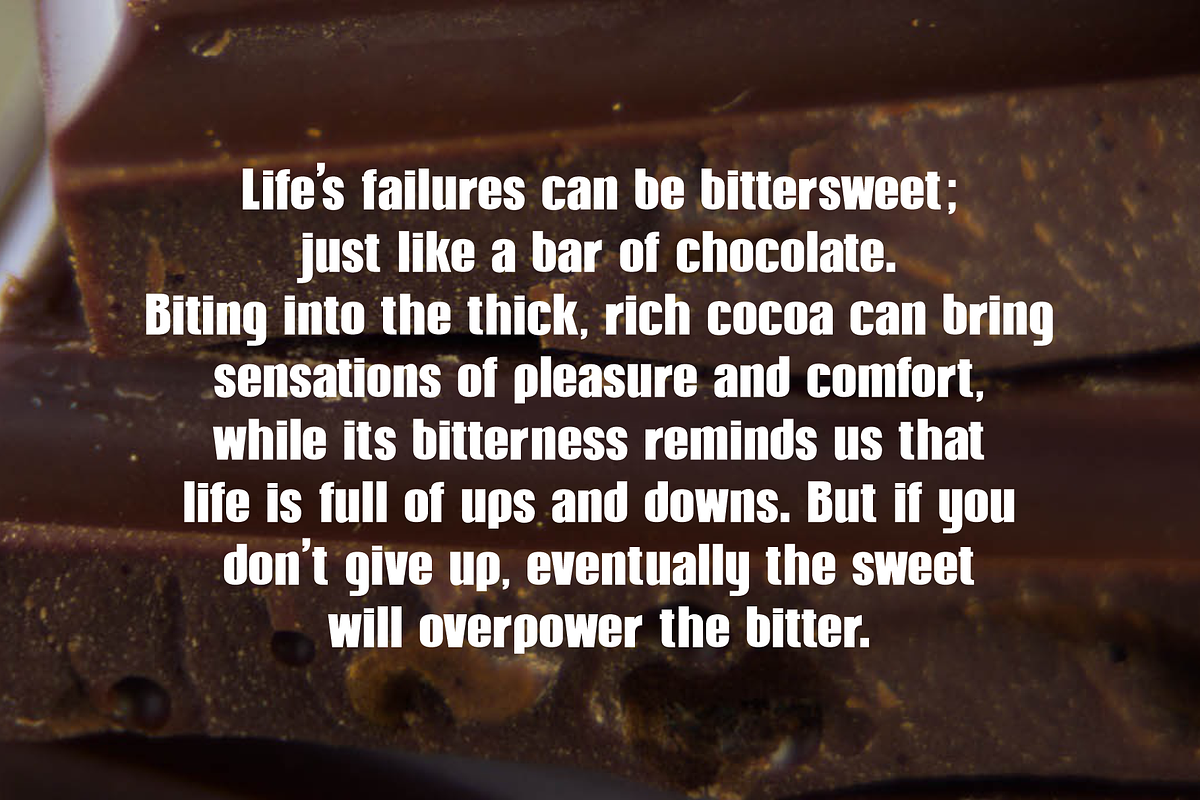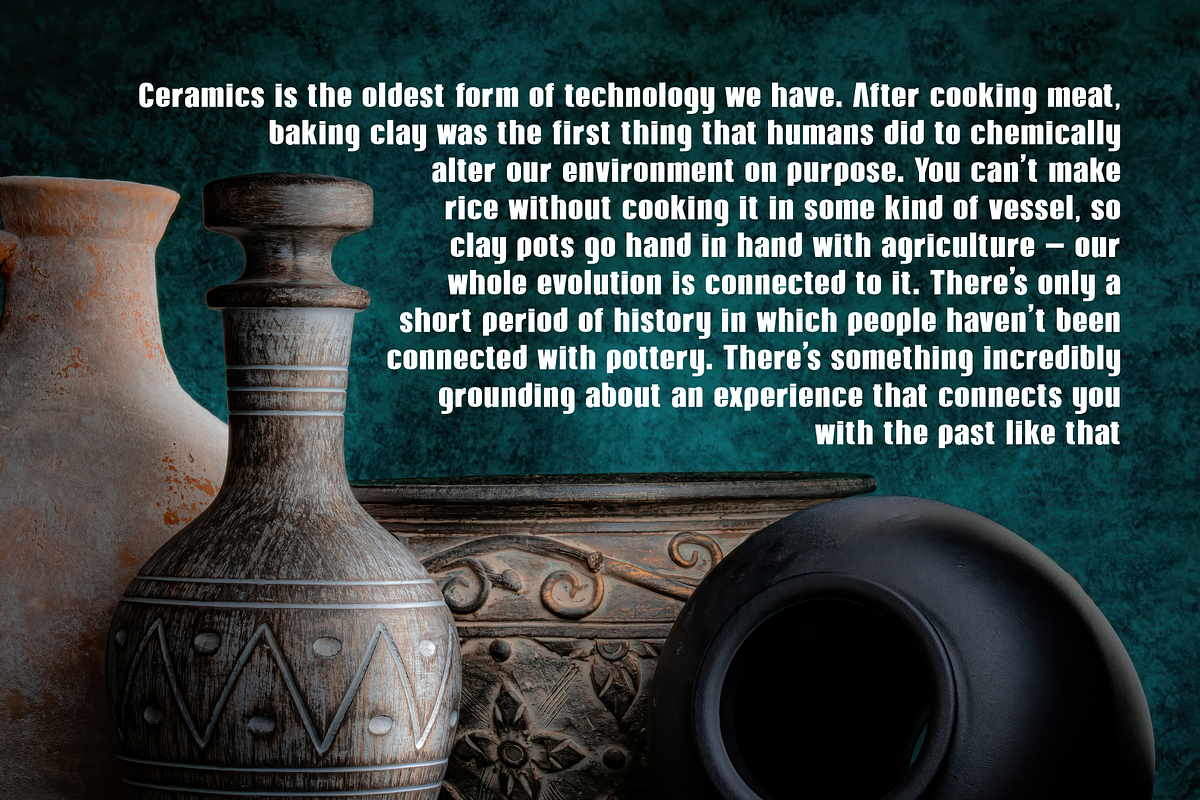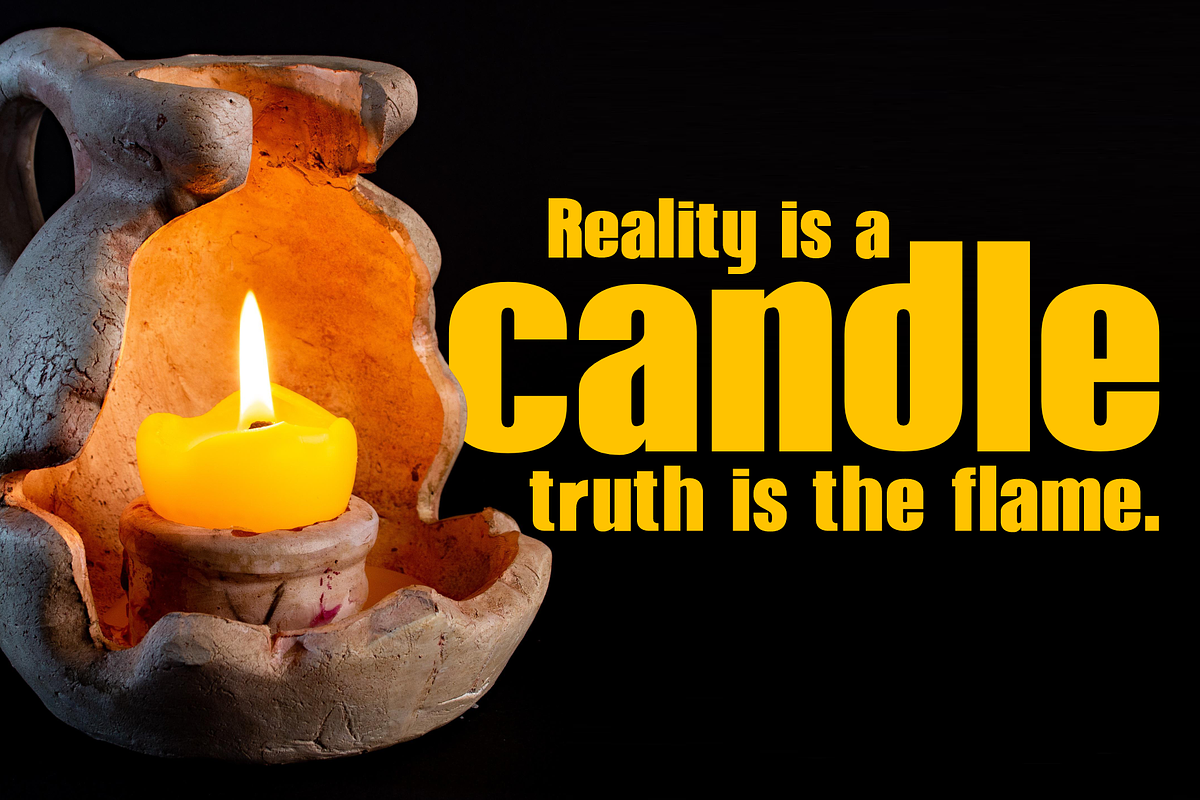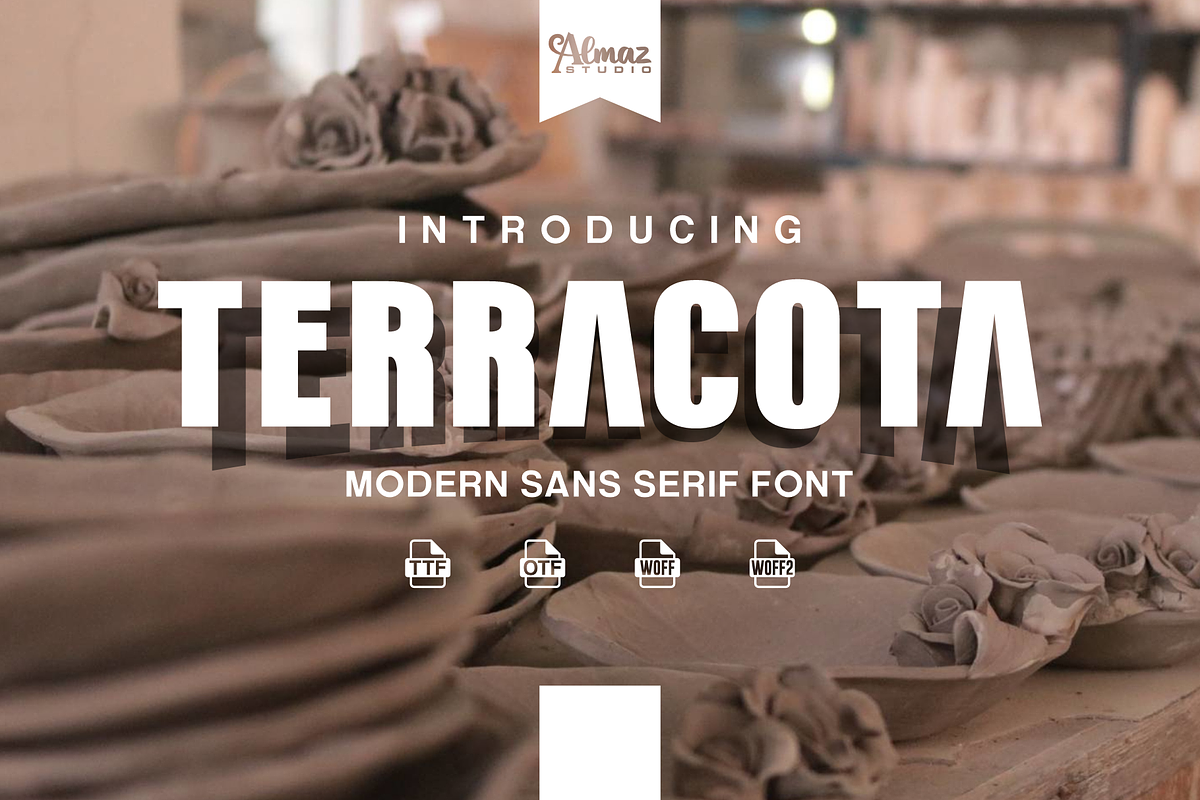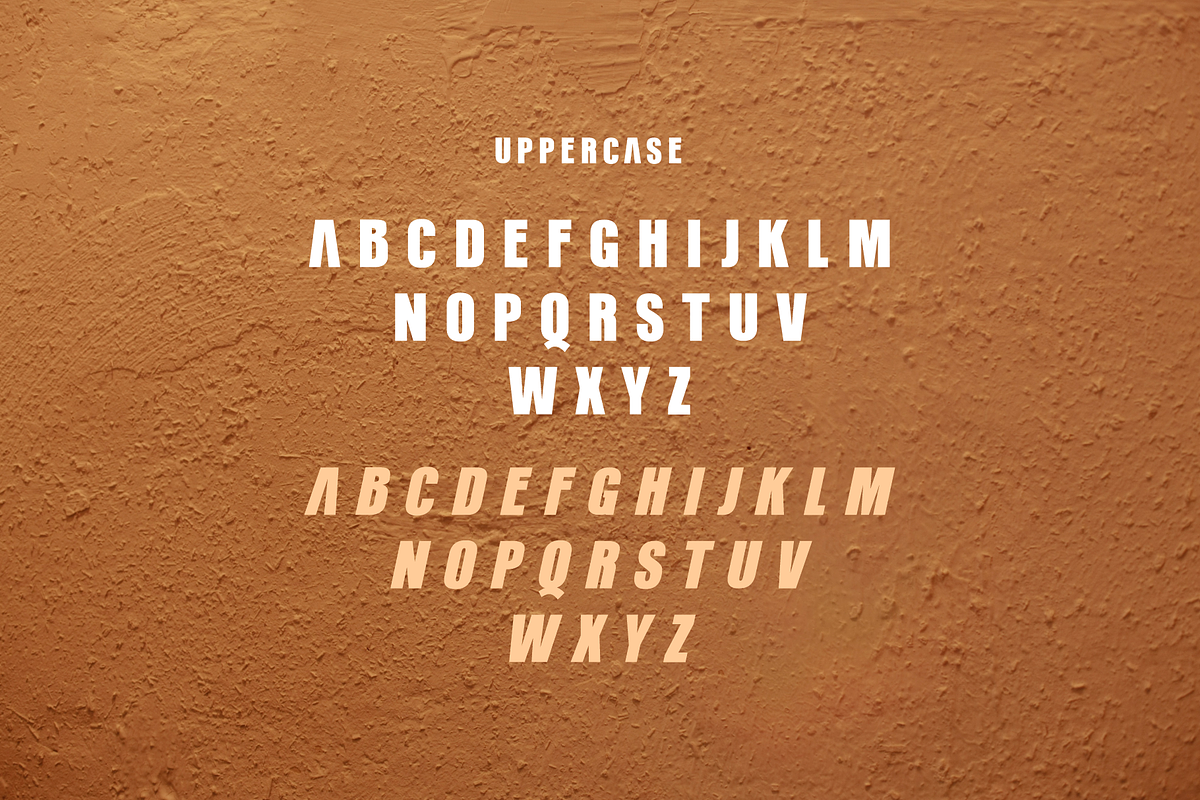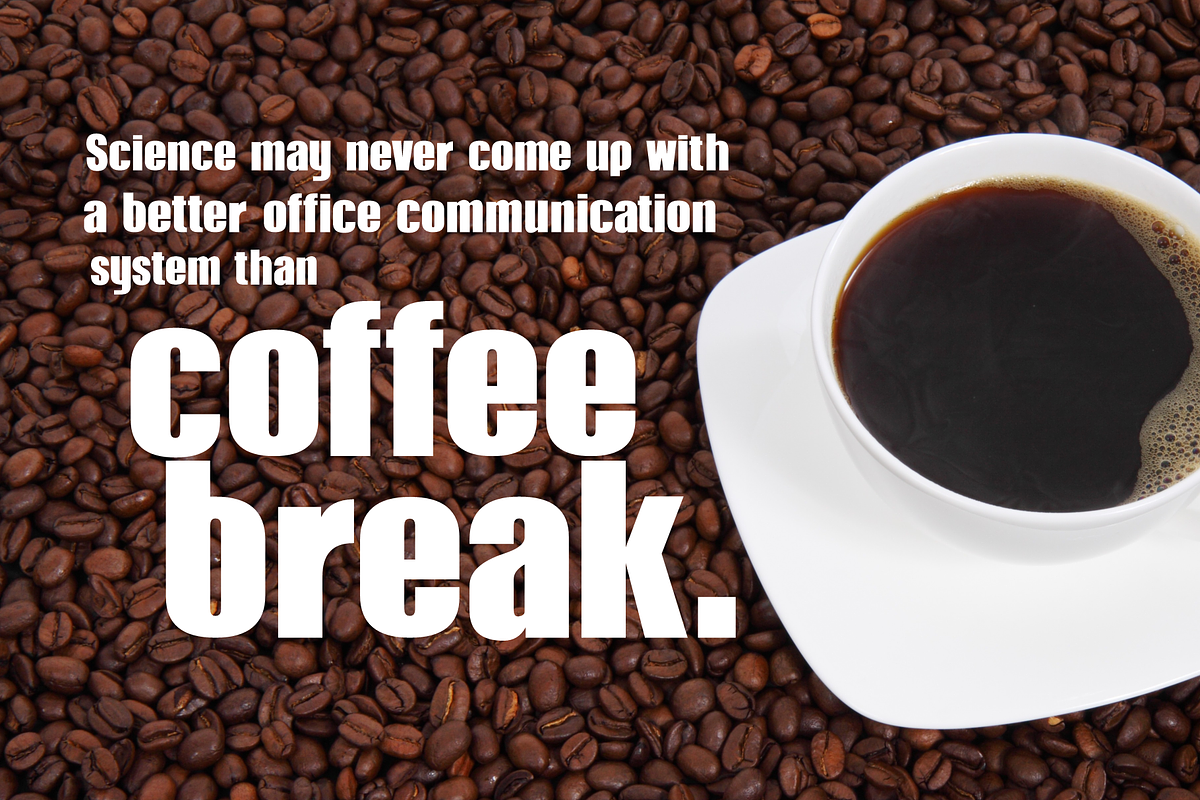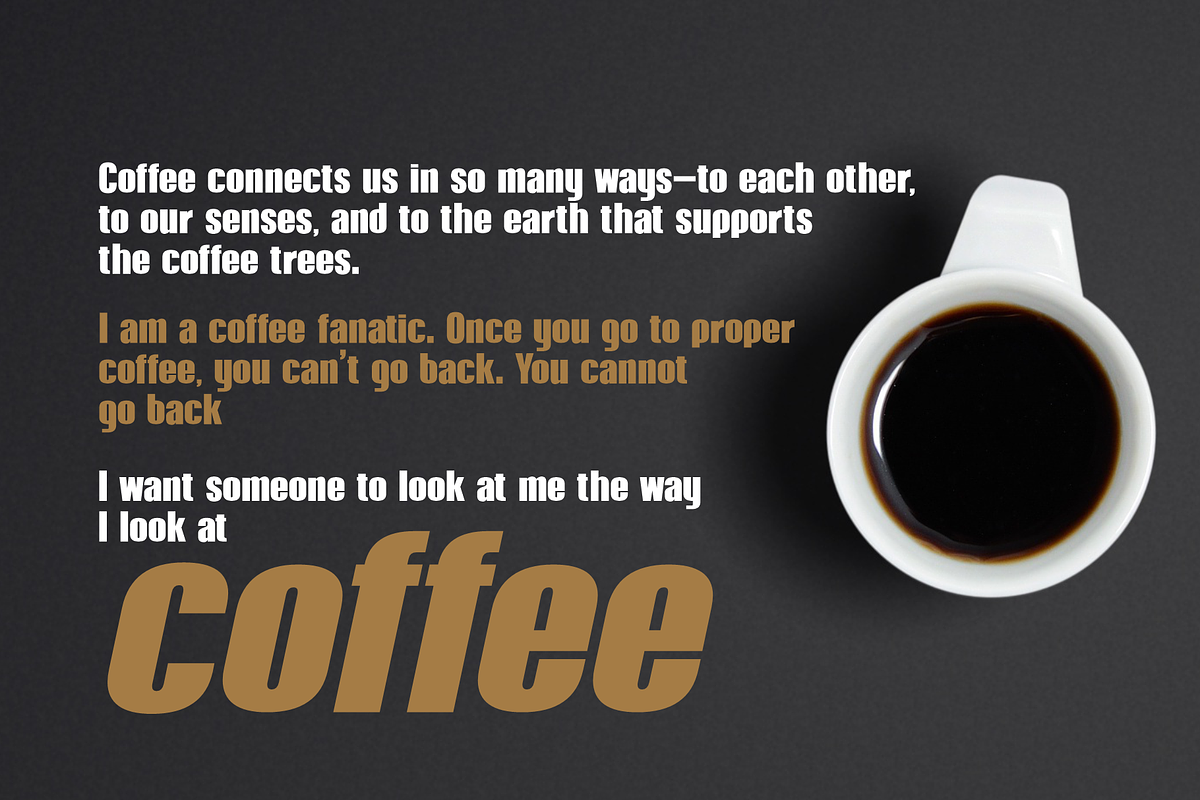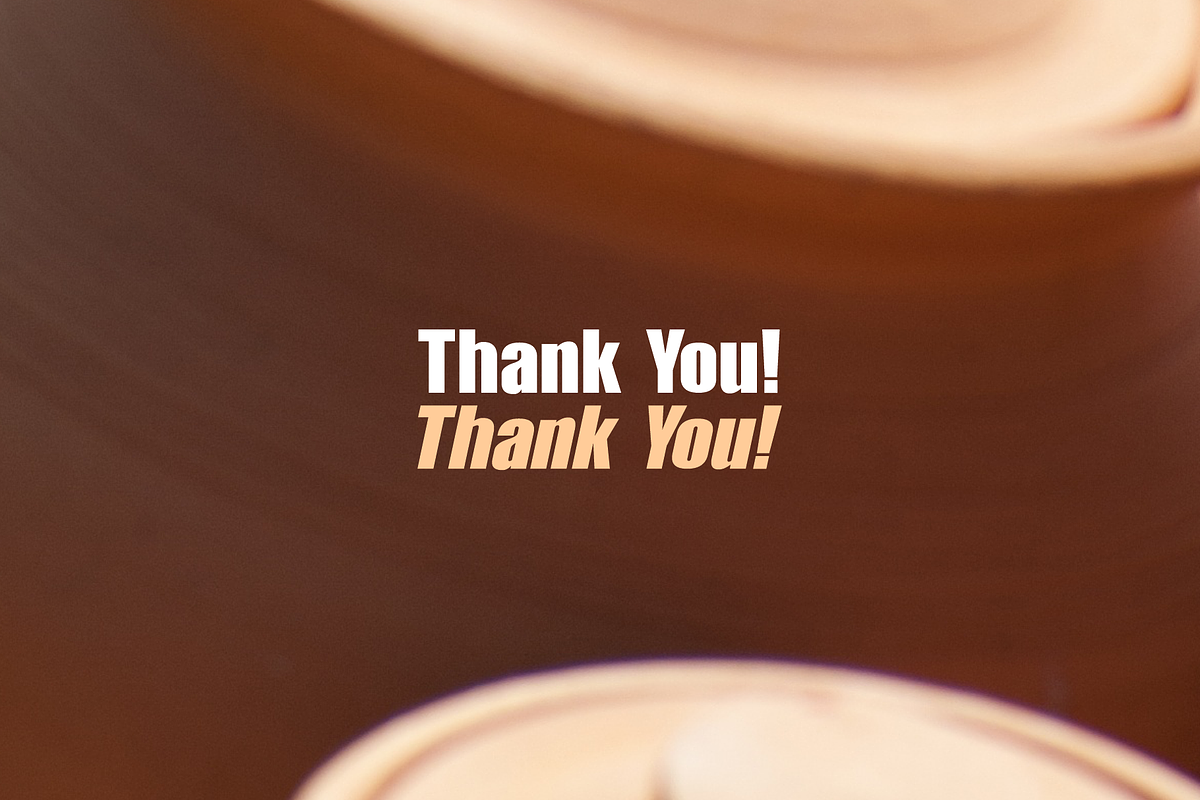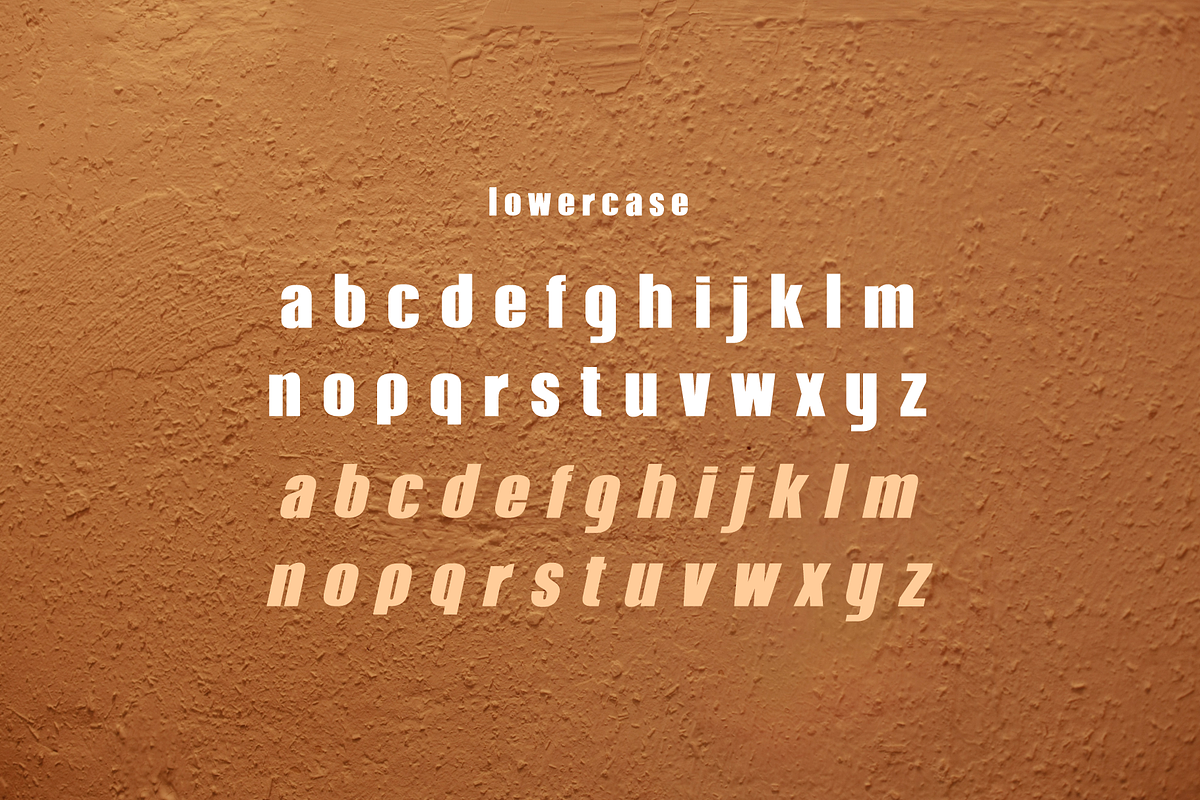
Terracota
Terracota is an elegant sans serif font with a beautiful contrast. Made from font designer named Almaz Studio™. Terracota font is a typographic style that emphasizes thickness and weight. It is characterized by strong and prominent letterforms without the use of small lines or decorative elements. The boldness of this font style helps to create a visually striking effect, making it stand out in designs and text compositions. The thick strokes of the letters make them highly readable even at smaller sizes. Sans serif bold fonts are often used for titles, headlines, and any text that requires emphasis or attention. They convey a sense of strength, confidence, and impact. With their bold and assertive appearance, sans serif bold fonts add a strong and impactful presence to any design or typographic layout.